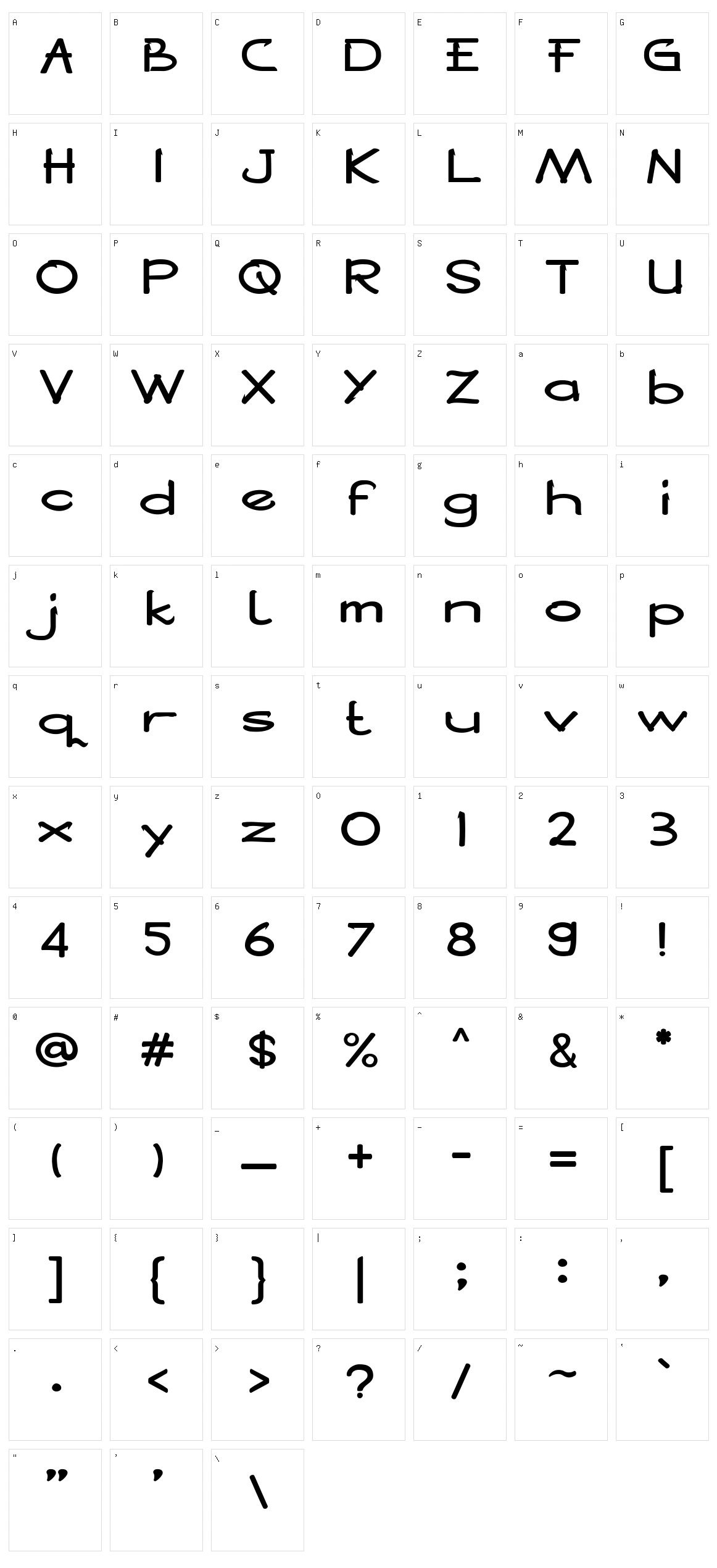
Jsd Streampoint is a expanded handwriting font. This font inspired from someone handwriting. The font fit in to create book cover, business card, wedding sign, shop name design, poster, ect.